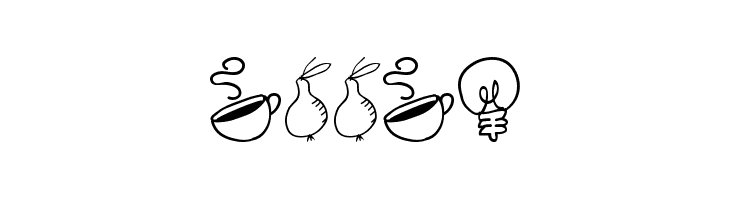
A bold, playful font with a retro shadow effect.
( Fonts by ShyFonts )
A sleek, italicized font with a modern and elegant style.
( Fonts by Iconian Fonts )
A bold, futuristic font with geometric shapes and sharp angles.
( Fonts by Alpaprana Studio )
A dramatic, edgy font with sharp, angular strokes and a dynamic appearance.
A bold, jagged, brush-style font with an aggressive and energetic appearance.
( گالری فانت فارسی پژوهش آريانا - only compatible with Farsi and Arabic )
A bold, geometric font with clean lines and modern style.